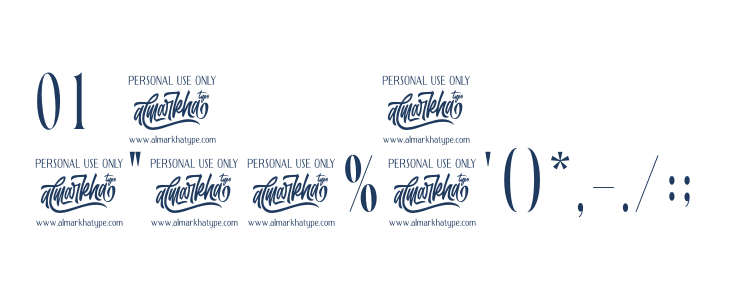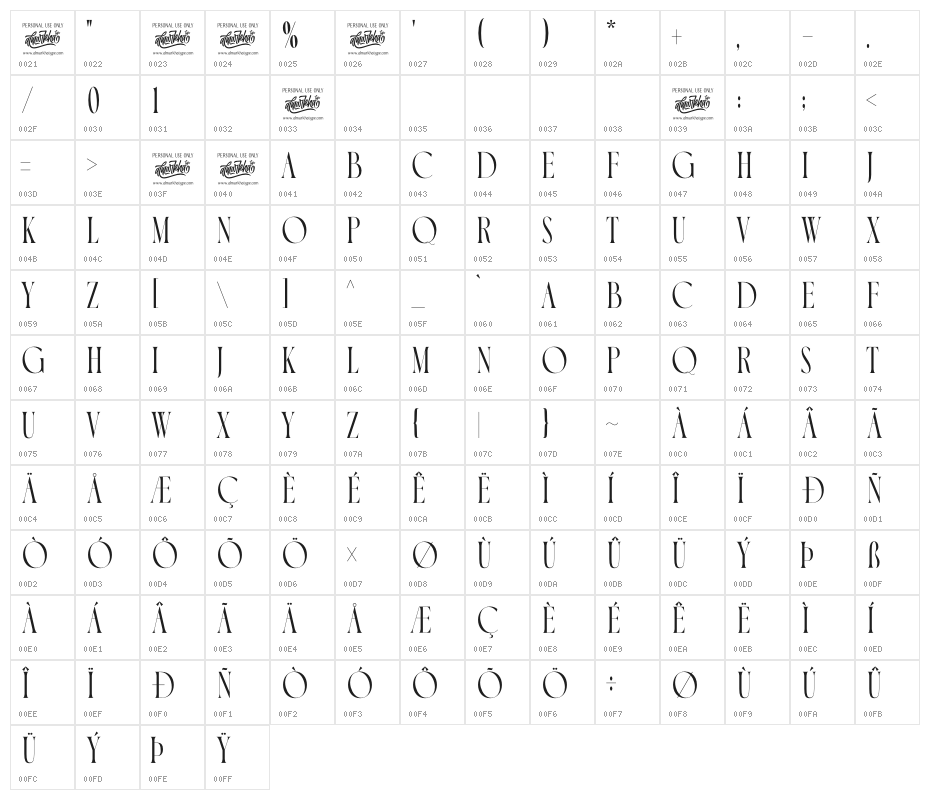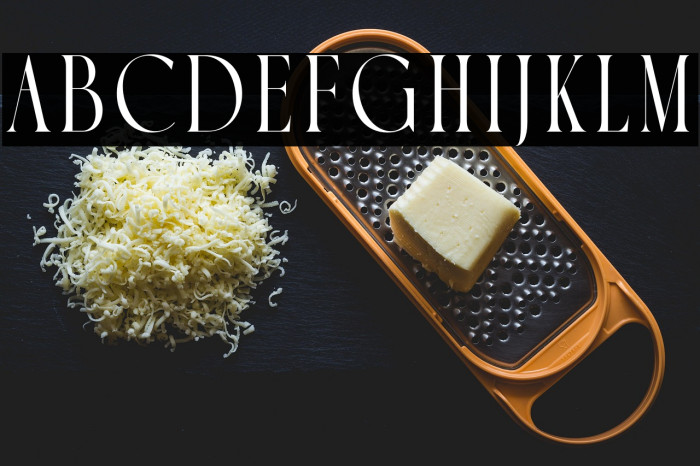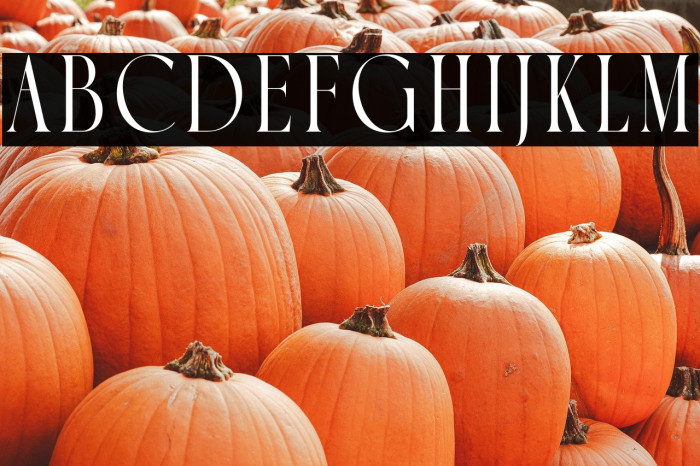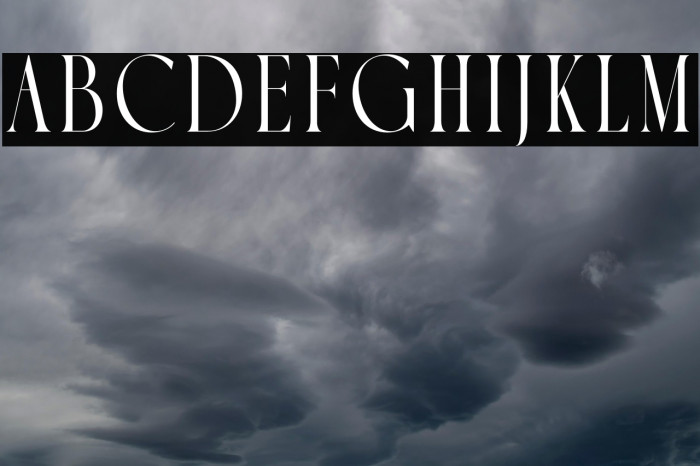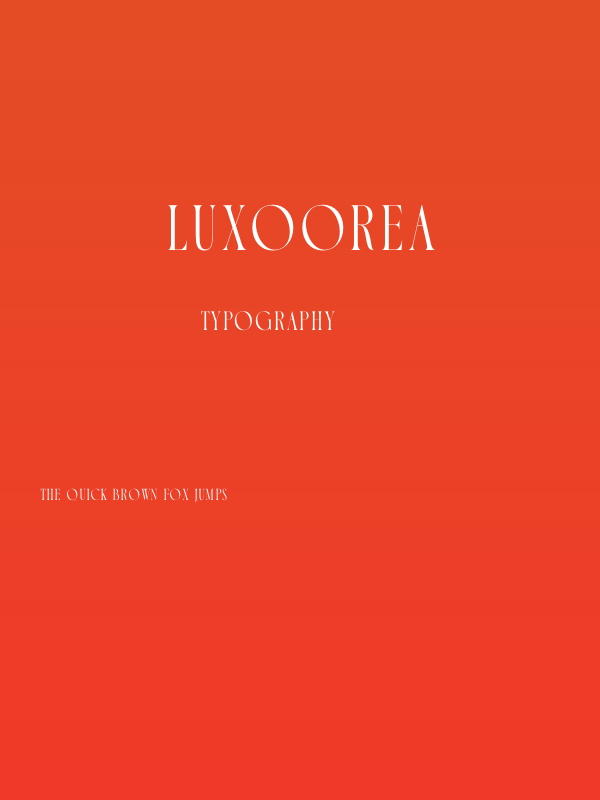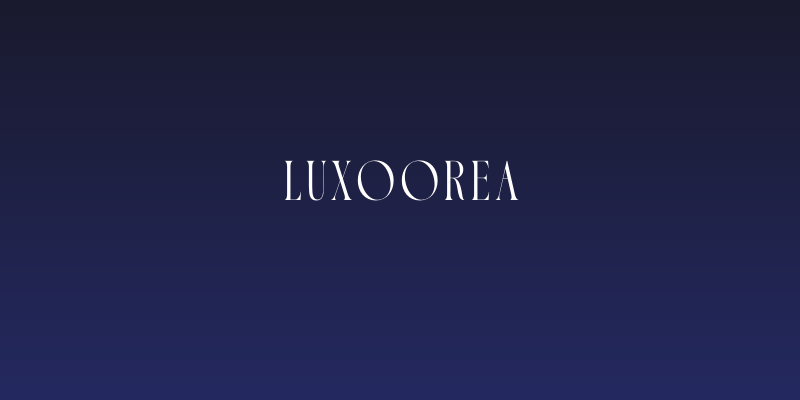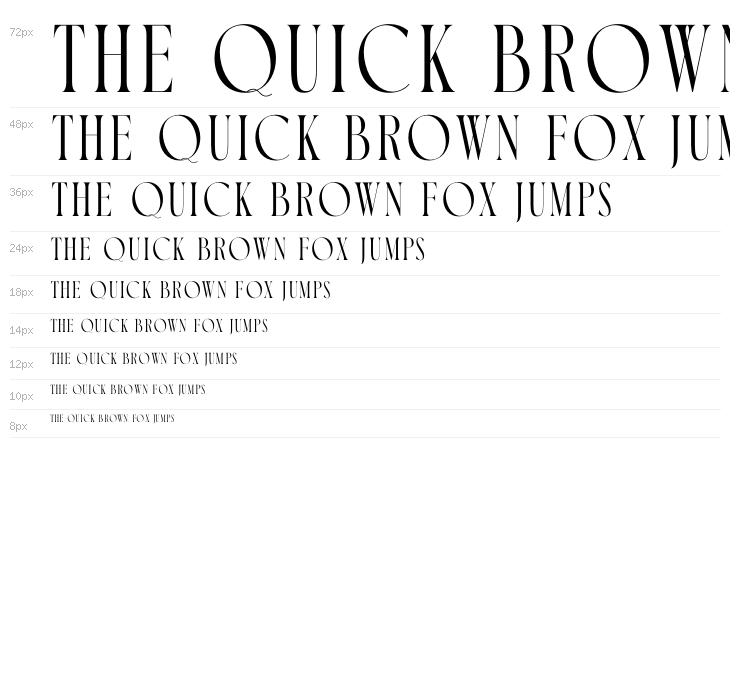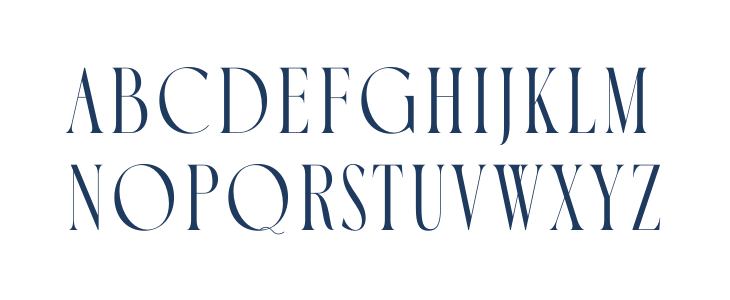
Luxoorea Font
Luxoorea Description
This elegant typeface features a sophisticated blend of modern and classic elements, characterized by its high contrast between thick and thin strokes. The uppercase letters exhibit a refined, elongated form with subtle serifs, while the lowercase letters maintain a graceful and flowing appearance. The numerals are stylishly designed, complementing the overall aesthetic. Special characters are crafted with attention to detail, enhancing the font's versatility. This typeface exudes a sense of luxury and refinement, making it ideal for high-end branding and editorial design.
| Proposed Projects | Ideal for luxury branding, editorial design, invitations, and high-end product packaging. |